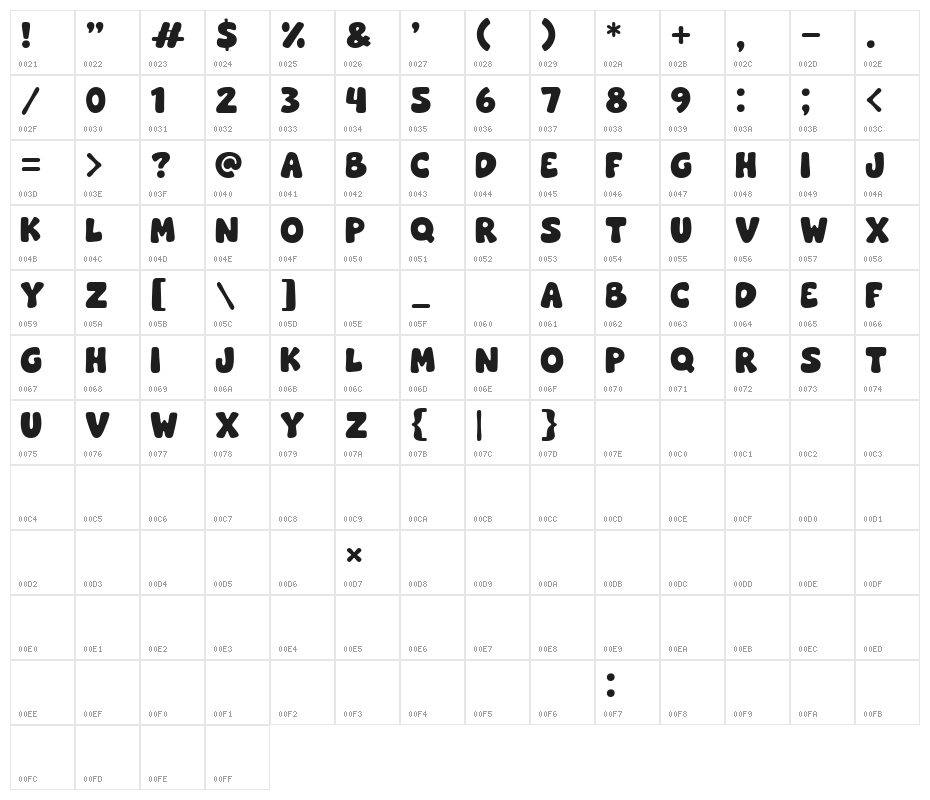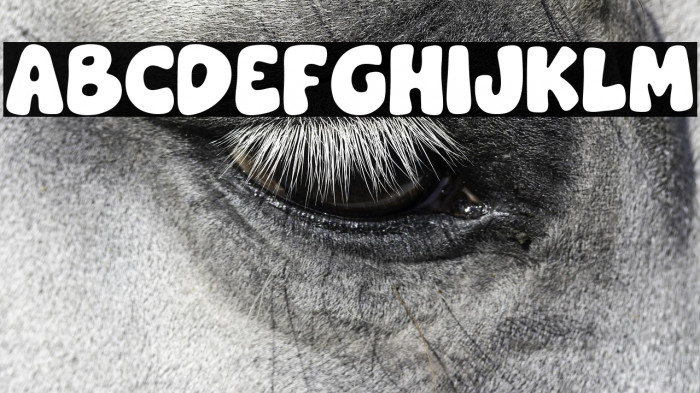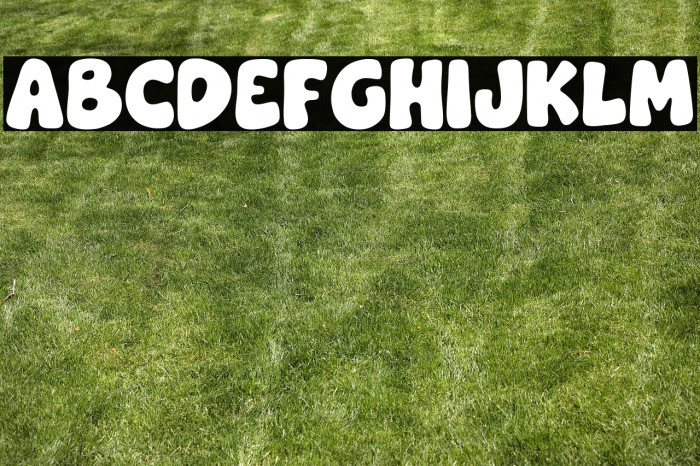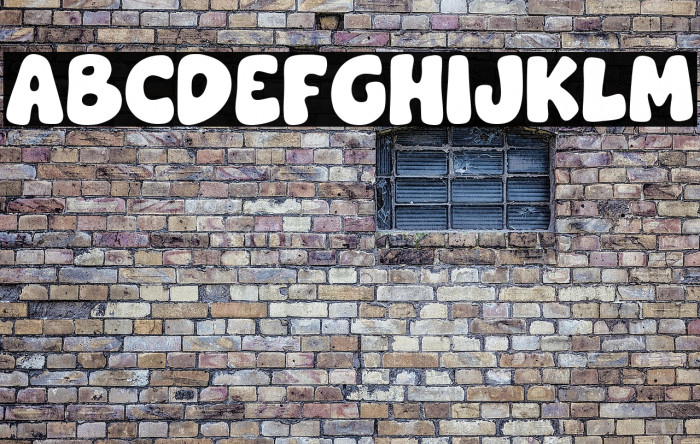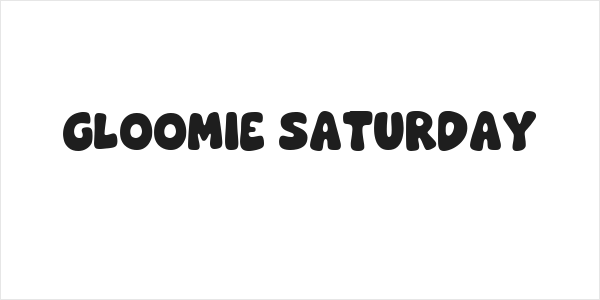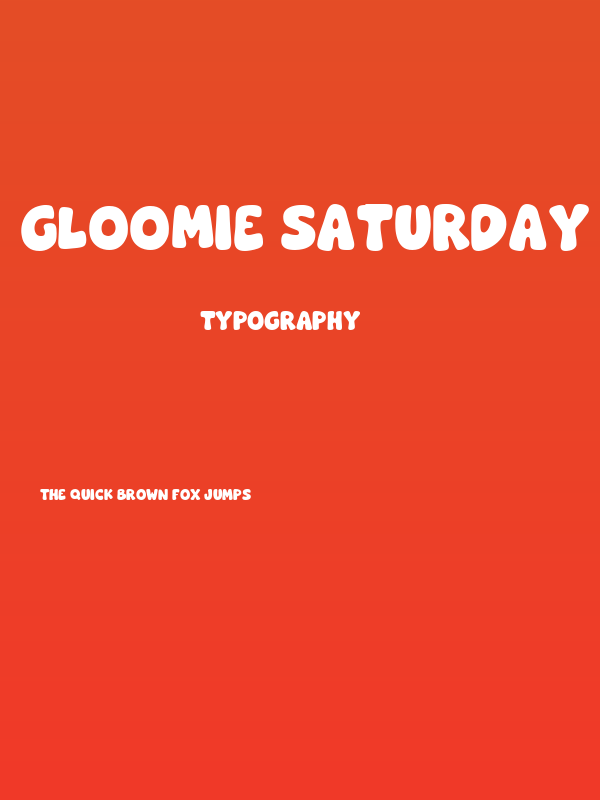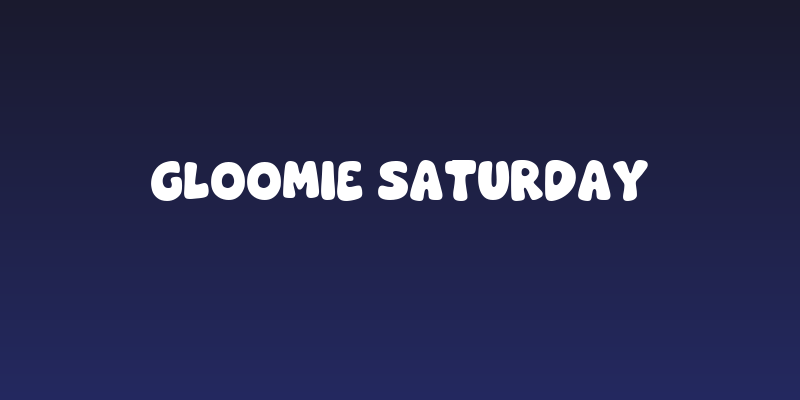
Gloomie Saturday Font
Gloomie Saturday Description
This font features a bold and playful design with rounded edges and a bubbly appearance. The characters are thick and substantial, giving a sense of fun and approachability. The uniformity in stroke width across all characters provides a consistent and cohesive look. The font is highly legible, making it suitable for various creative applications. Its whimsical style is perfect for projects that aim to convey a sense of joy and lightheartedness. The numbers and special characters maintain the same playful aesthetic, ensuring a harmonious overall appearance.